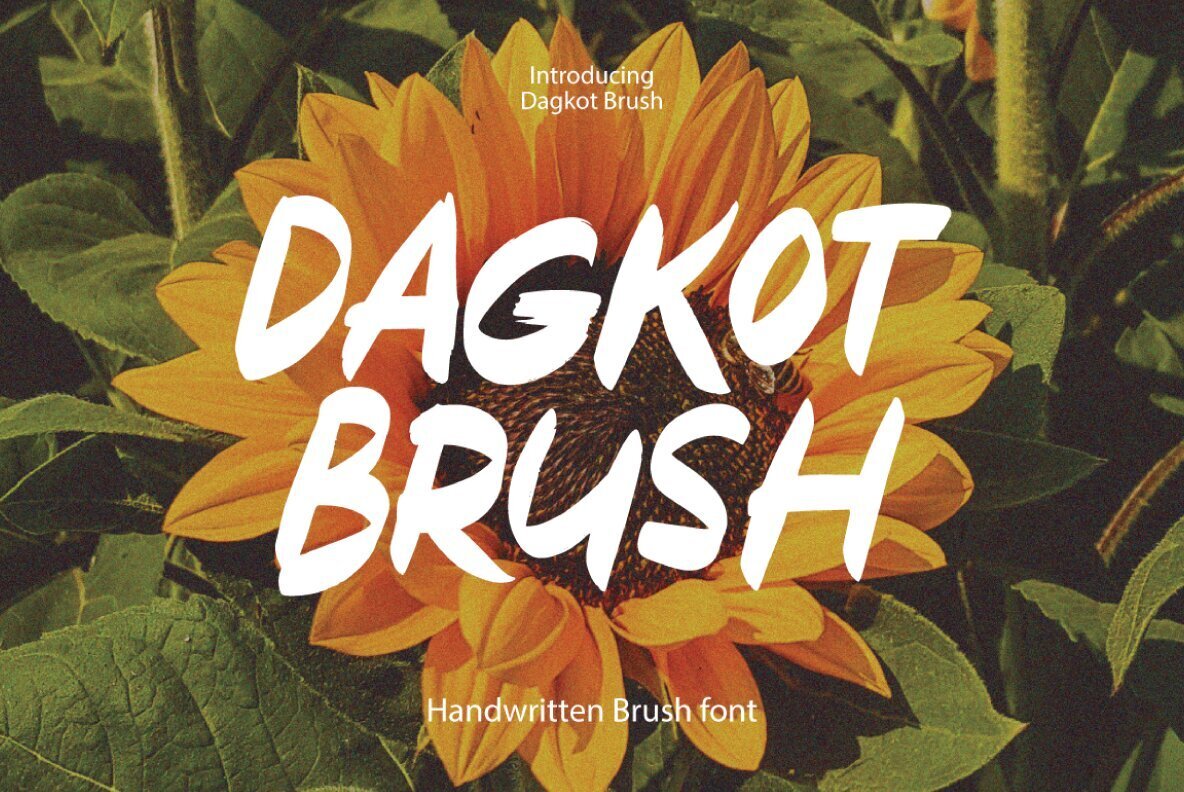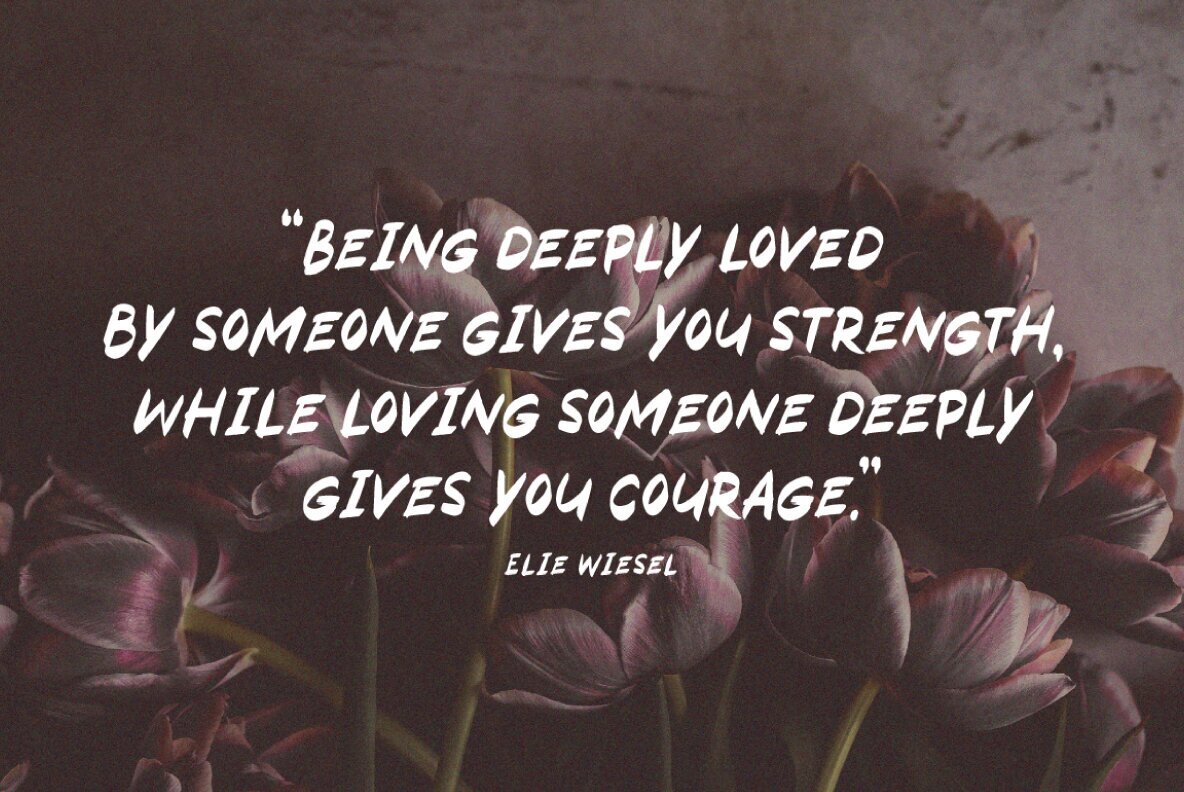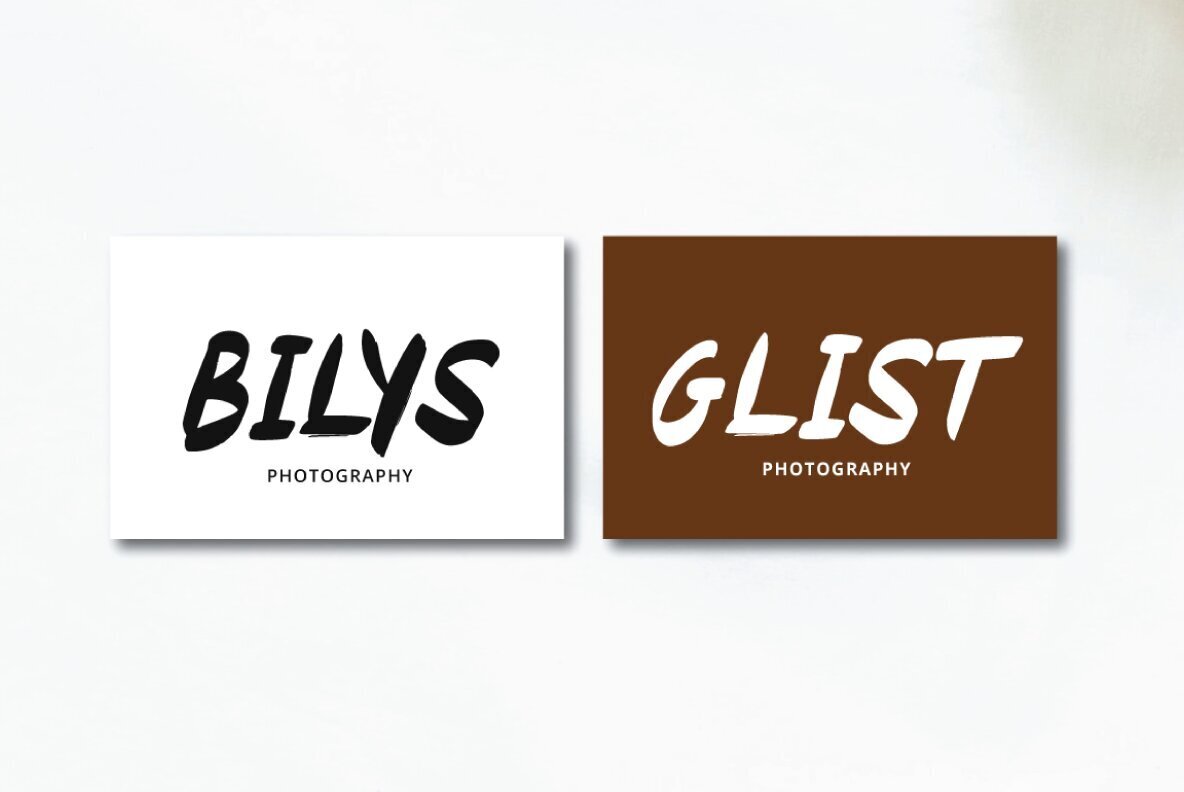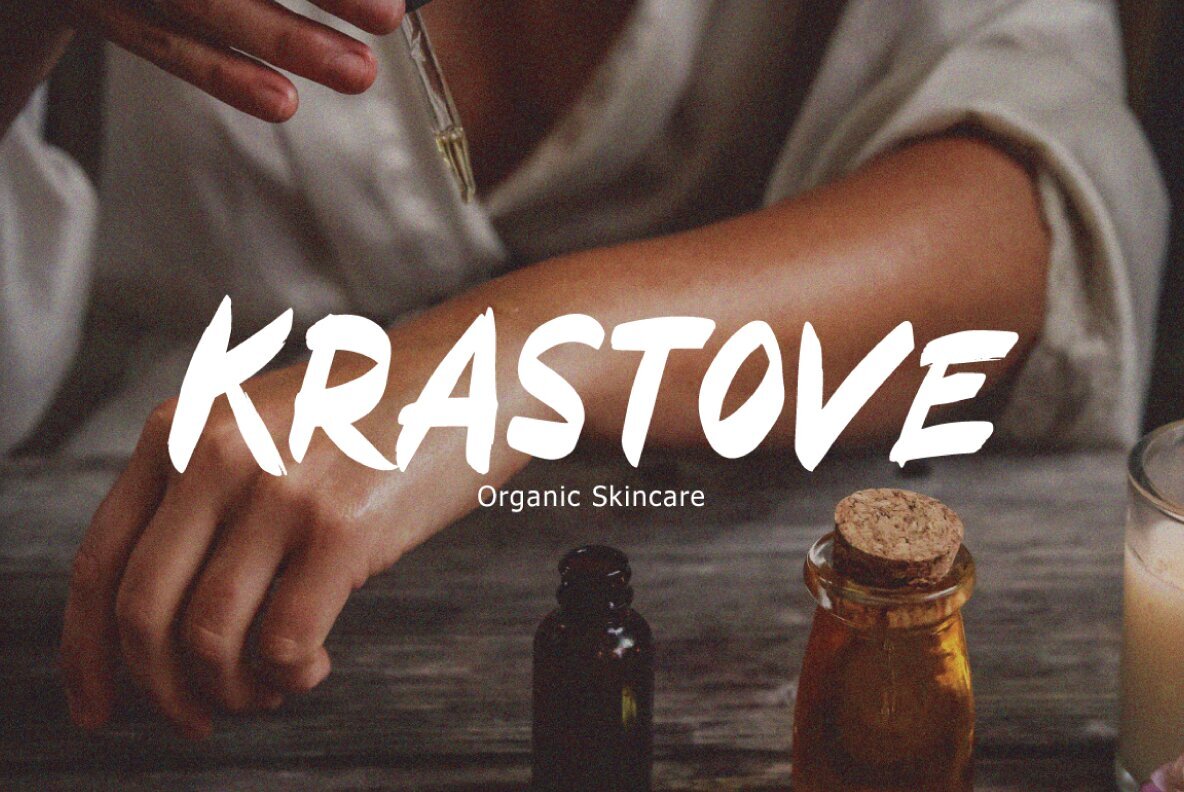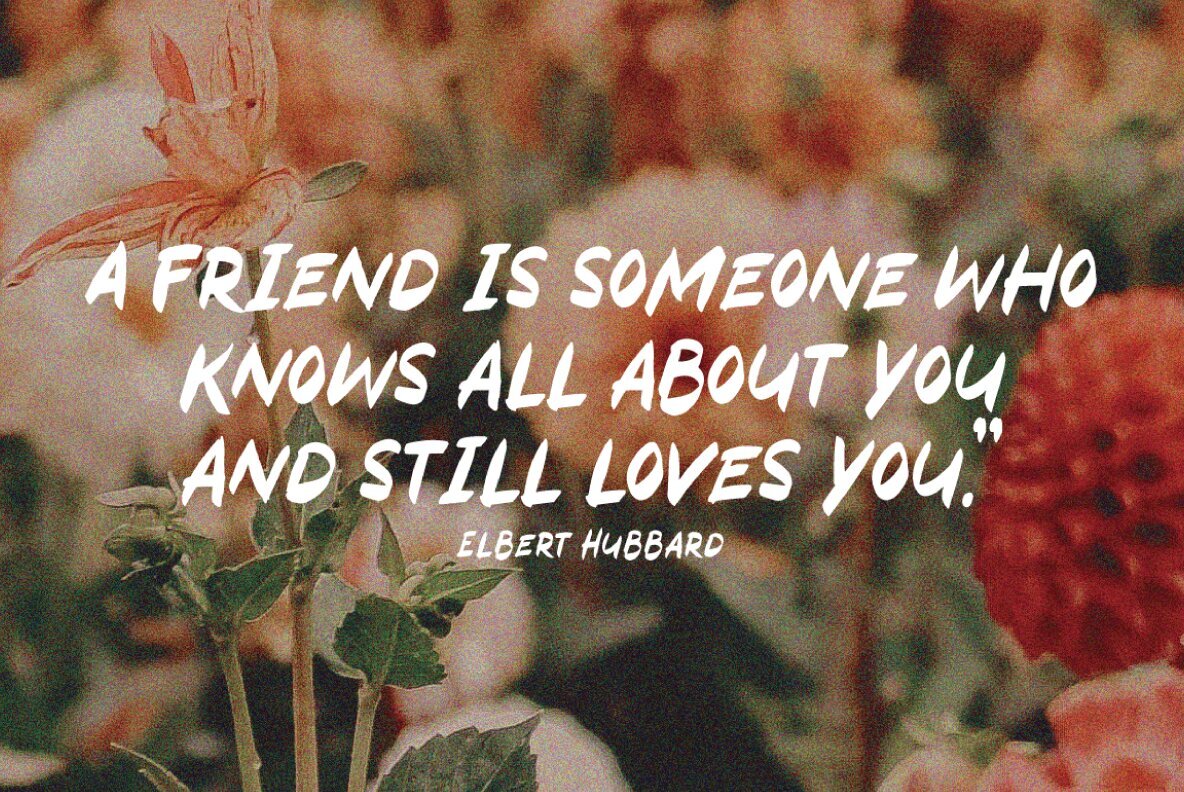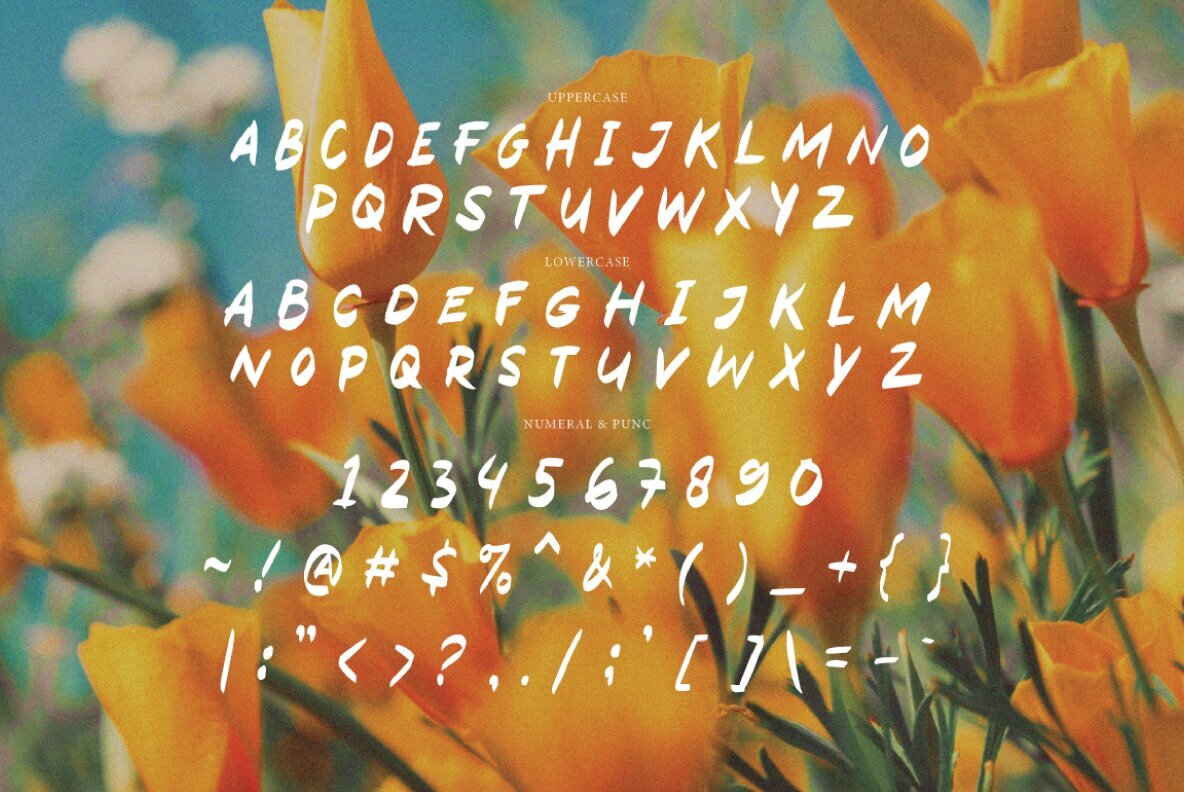
Dagkot Brush Font
Dagkot Brush Regular
Infuse your designs with the spirited charm of Dagkot Brush, a typeface that exudes personality. Perfect for a range of applications, from logos and badges to packaging and posters, this font adds a unique flair to any project. Its alternative characters are crafted with intricate detail, offering several OpenType features including Stylistic Alternates, Stylistic Sets, and Ligature options. Access these features using OpenType-compatible software such as Adobe Illustrator, Photoshop, or InDesign to unlock the full potential of Dagkot Brush in your creative endeavors.Dagkot Brush: Expressive Typeface for Creative Projects
Versatile OpenType Features